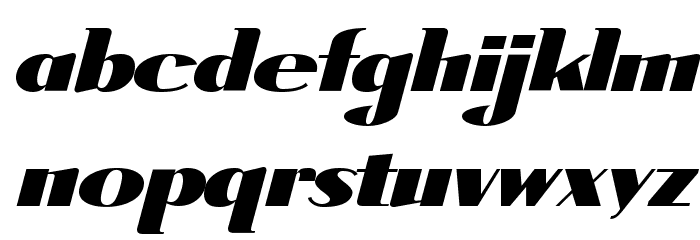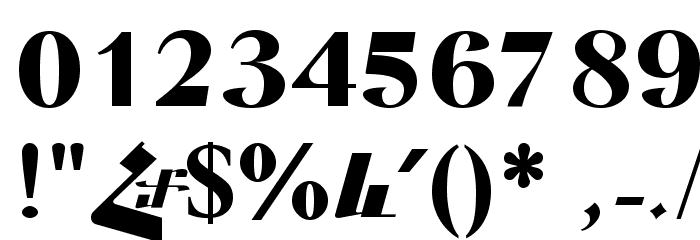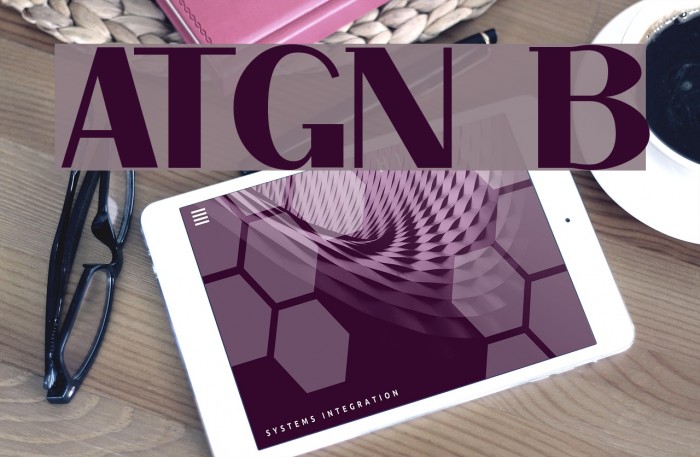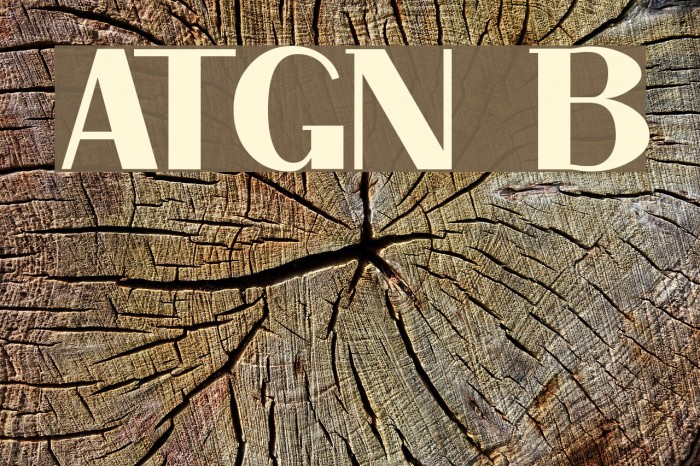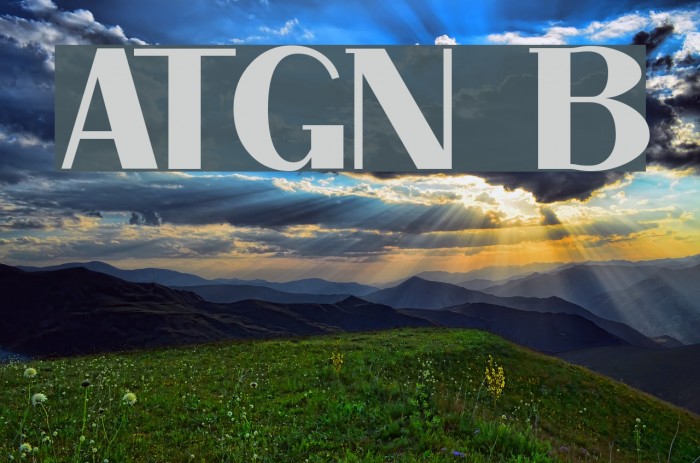
ArTarumianGrqiNor Bold Font
This font features a bold and dynamic style with a strong presence. The uppercase letters are characterized by their thick strokes and sharp serifs, giving them a commanding appearance. The lowercase letters maintain a similar boldness, with a slightly italicized slant that adds a sense of movement and elegance. The numerals are equally bold, ensuring they stand out in any context. Special characters are designed with the same attention to detail, making them cohesive with the rest of the typeface. Overall, this font combines traditional serif elements with a modern twist, making it versatile for various design needs.
A bold, dynamic serif font with a modern twist and slight italic slant.
- Proposed Projects: Ideal for headlines, branding, posters, and any project requiring a strong, elegant typeface.
- Use Case: Headlines, Logos, Branding